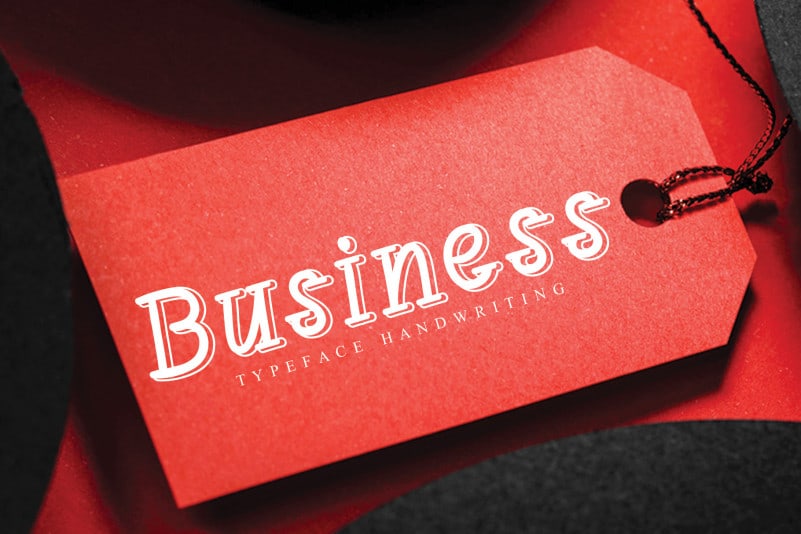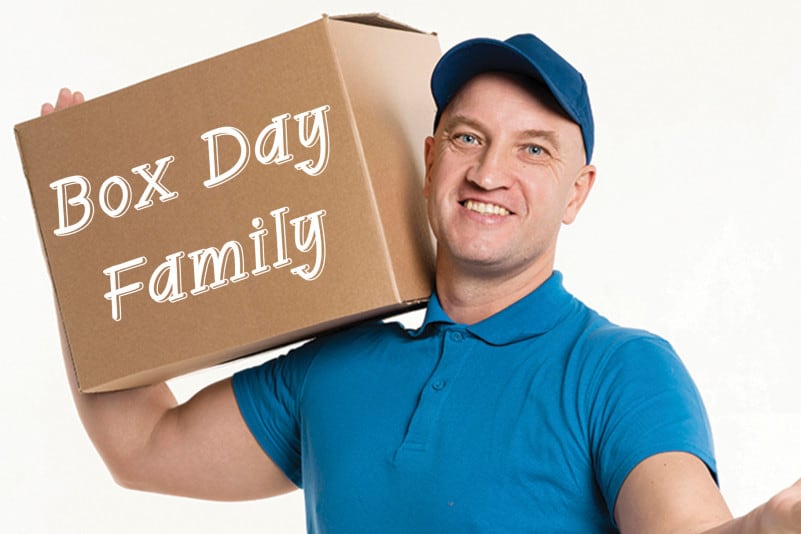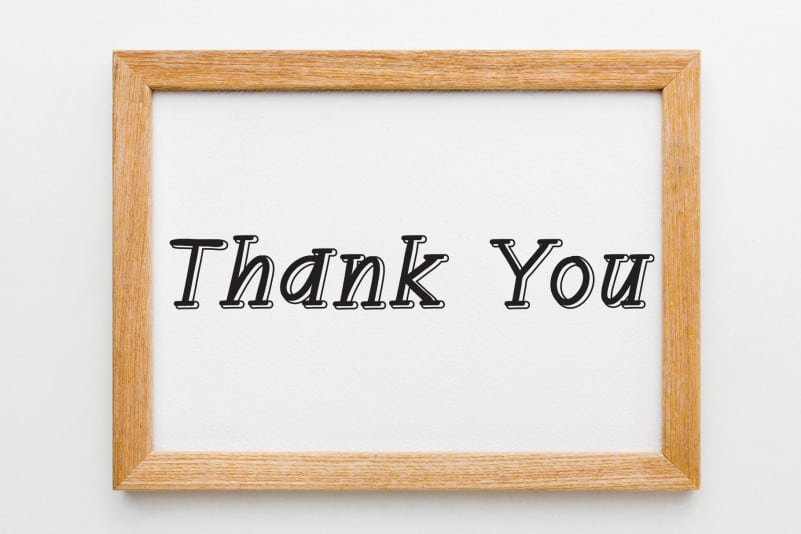
Hallo Mello Display Font
Hallo Mello Display Font is a beautiful script font. Get creative with its unique style and create beautiful logos, amazign greeting cards and much more!